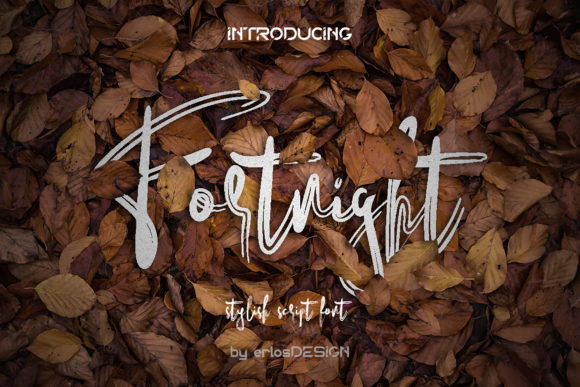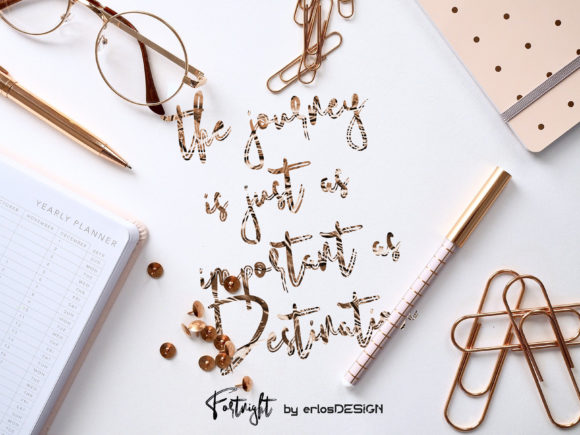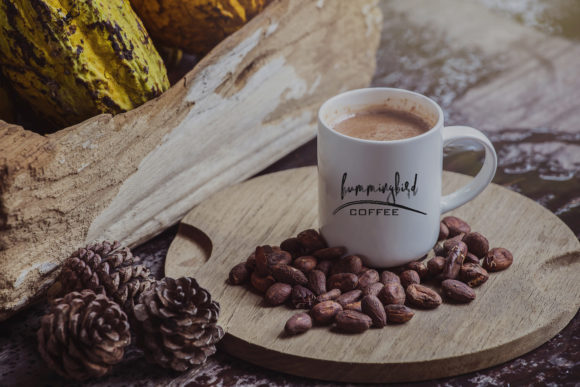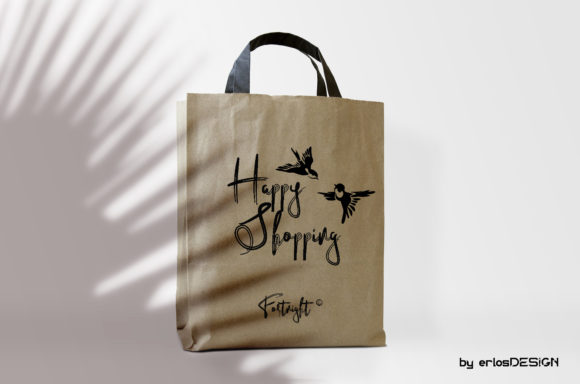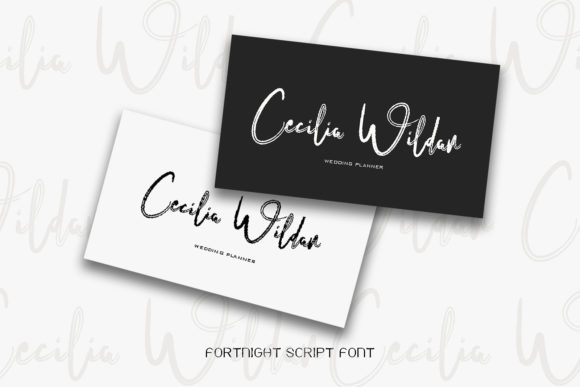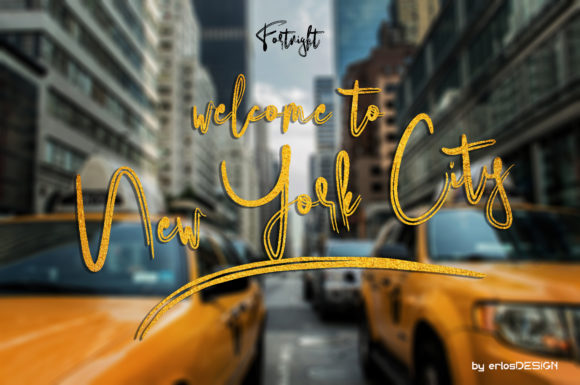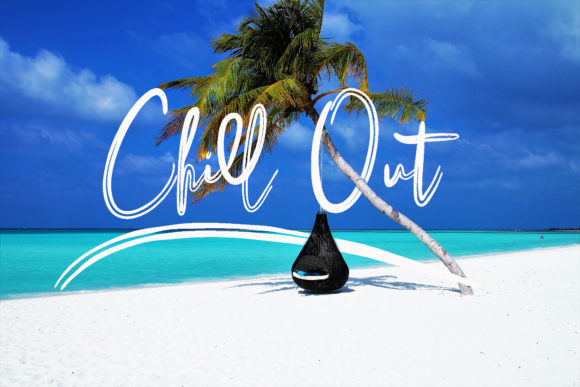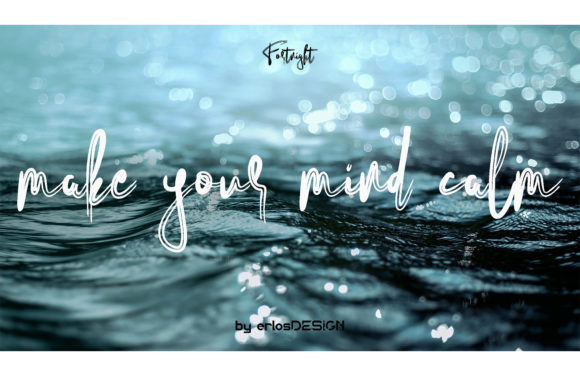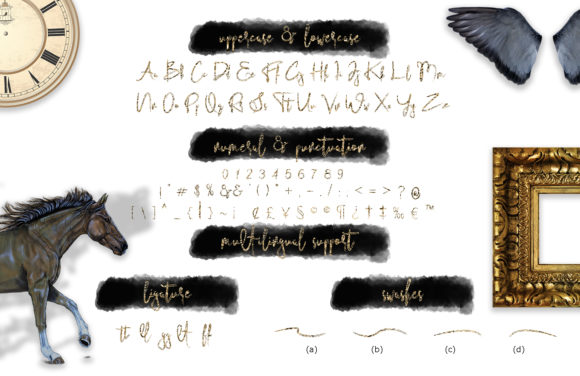
Fortnight Font
About Fortnight Font
Fortnight is an incredibly stylish script font which will look stunning in a wide variety of contexts. Created with the help of an outstanding brush pen, this font will elevate your projects to the highest level.